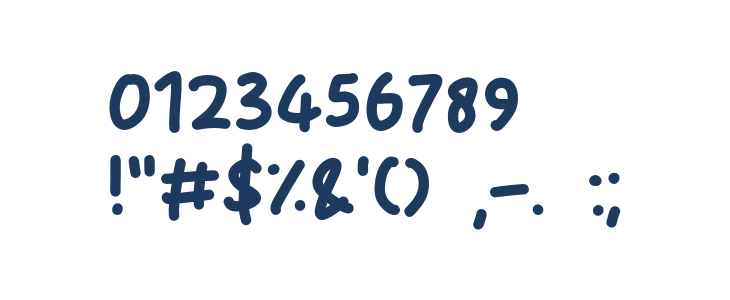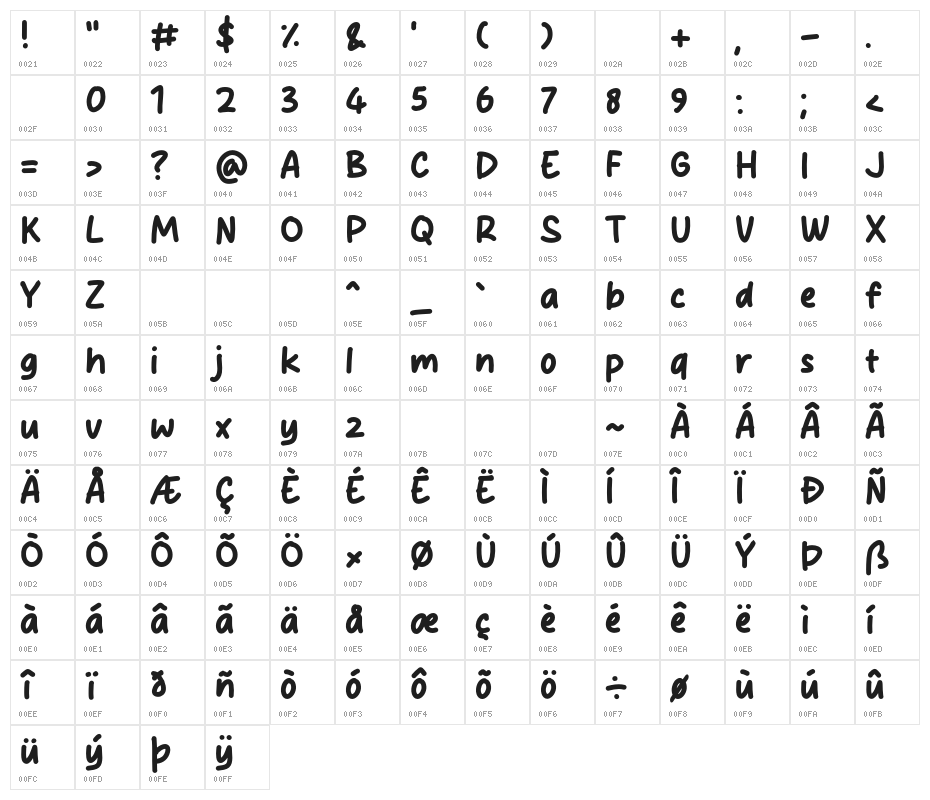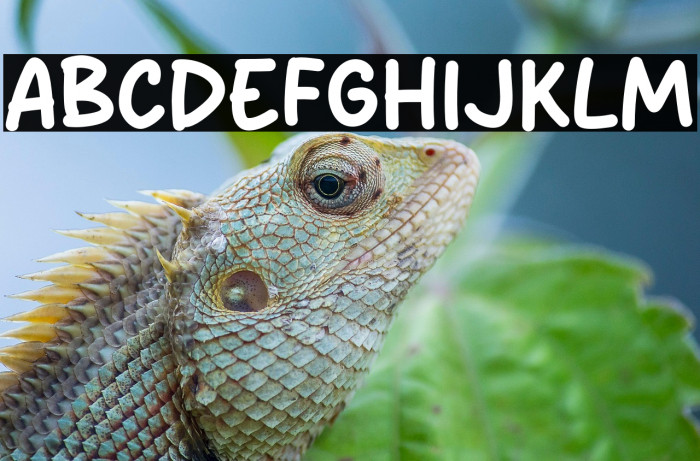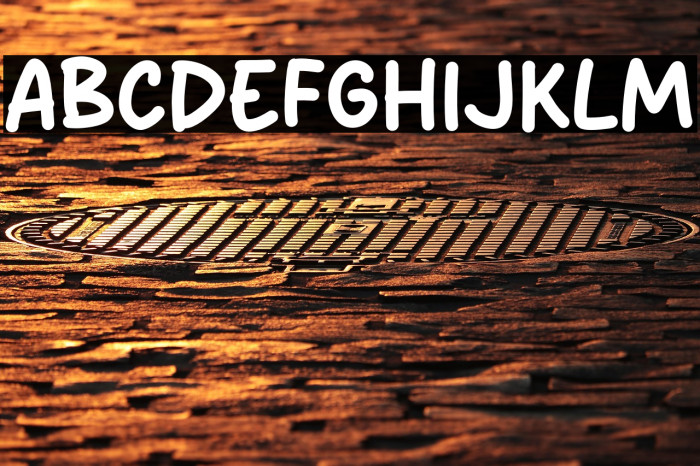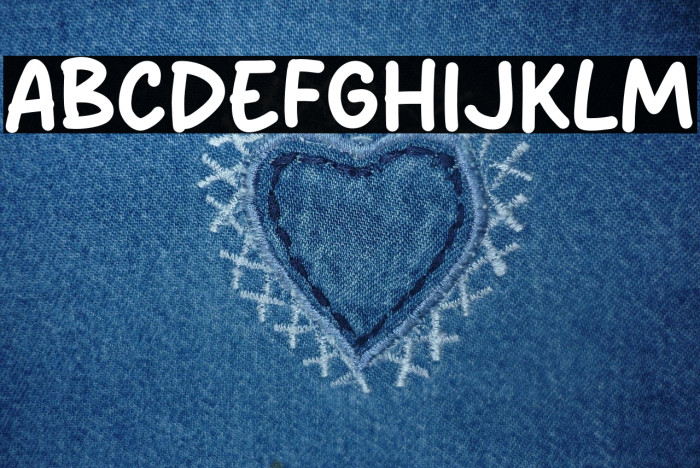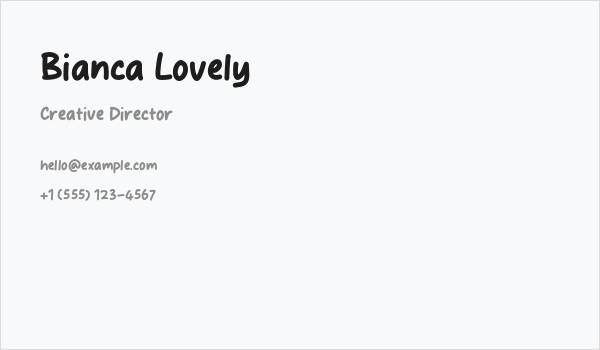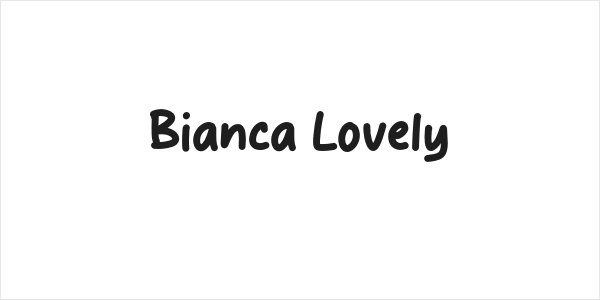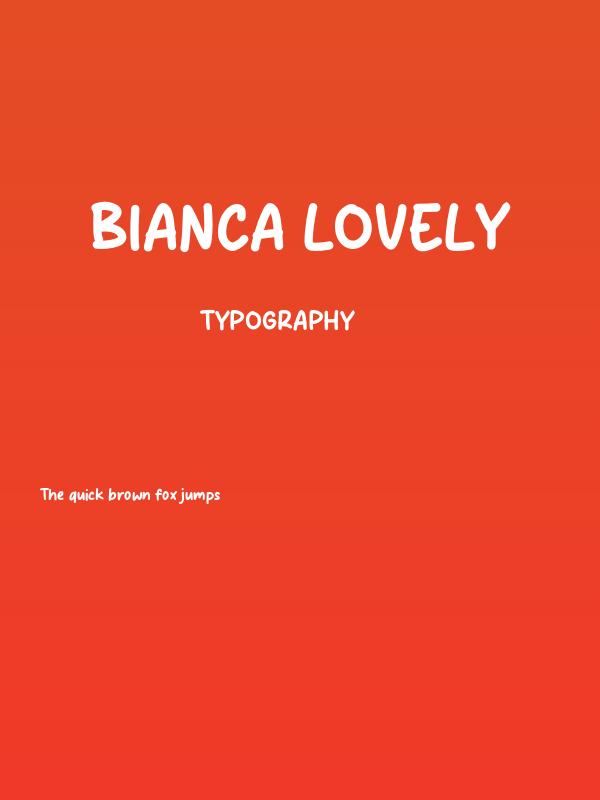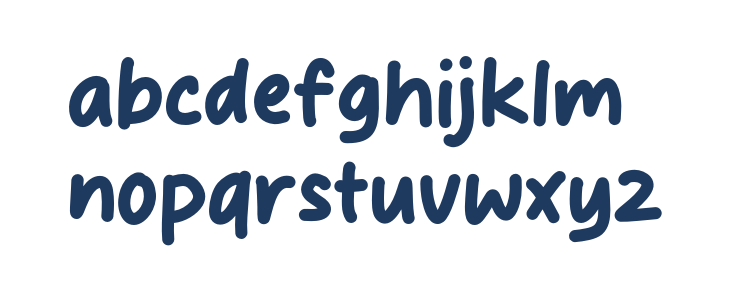
Bianca Lovely Font
Bianca Lovely Description
This font exudes a playful and casual vibe, characterized by its rounded and slightly irregular strokes that mimic a handwritten style. The letters are bold and have a consistent thickness, giving them a strong presence on the page. The uppercase and lowercase letters maintain a harmonious balance, with the lowercase letters slightly smaller and more compact. The numbers and special characters follow the same playful aesthetic, making them easily readable while maintaining the font's overall charm. This font is perfect for projects that require a friendly and approachable feel.
| Proposed Projects | Ideal for children's books, greeting cards, playful branding, and casual invitations. |